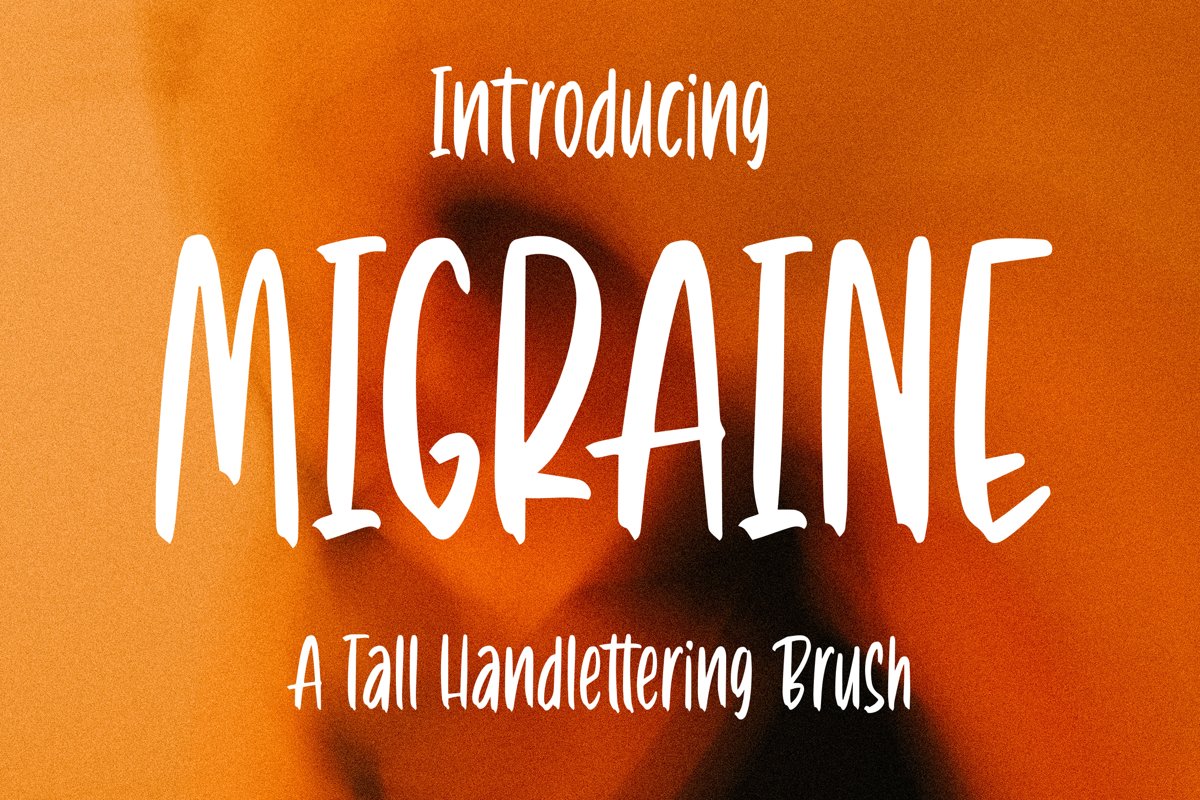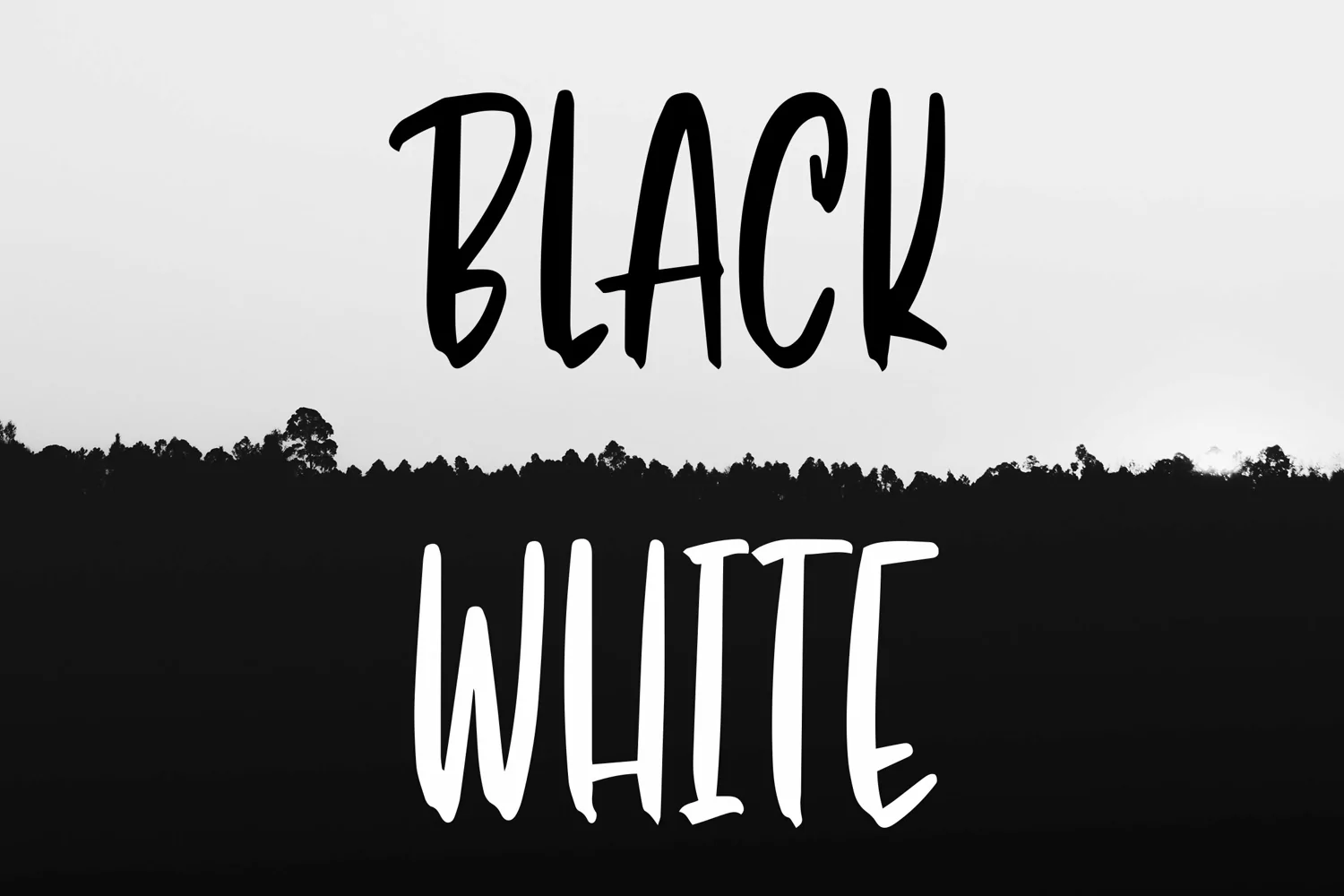
Migraine - Tall Handlettering Brush Font that contain lowercase, uppercase, symbol, and also support multi language. There’s a lot ligatures in this font. This Font also comes with ligatures, alternates and many more. this font suitable for fashion, branding, catalog and other design what you want.
Migraine